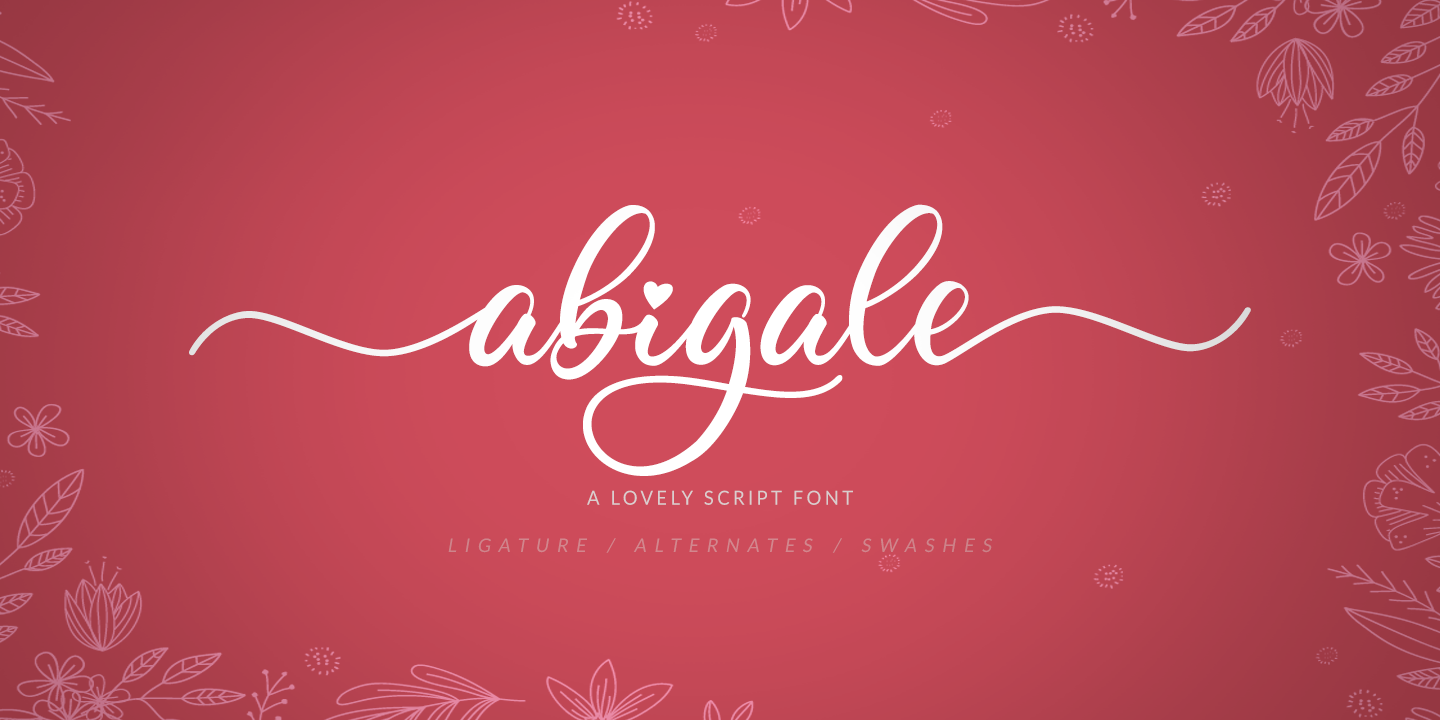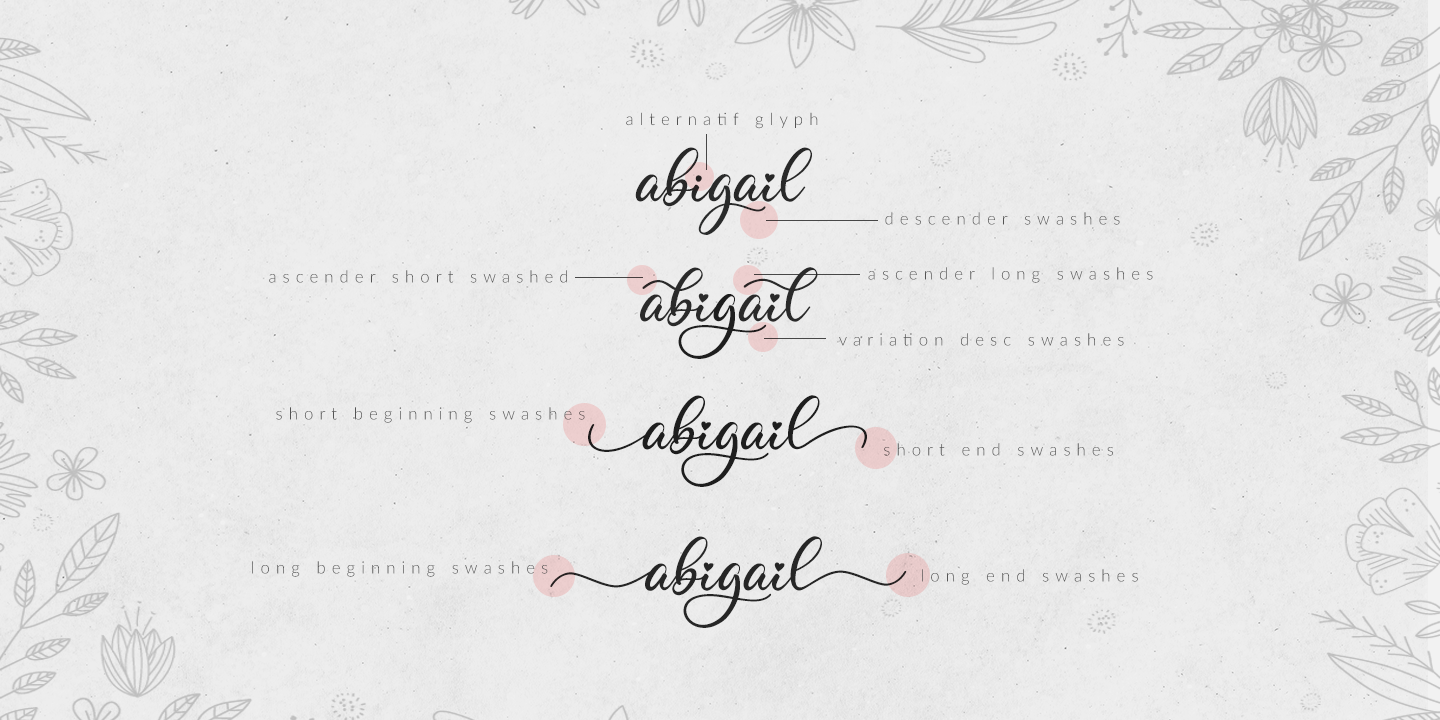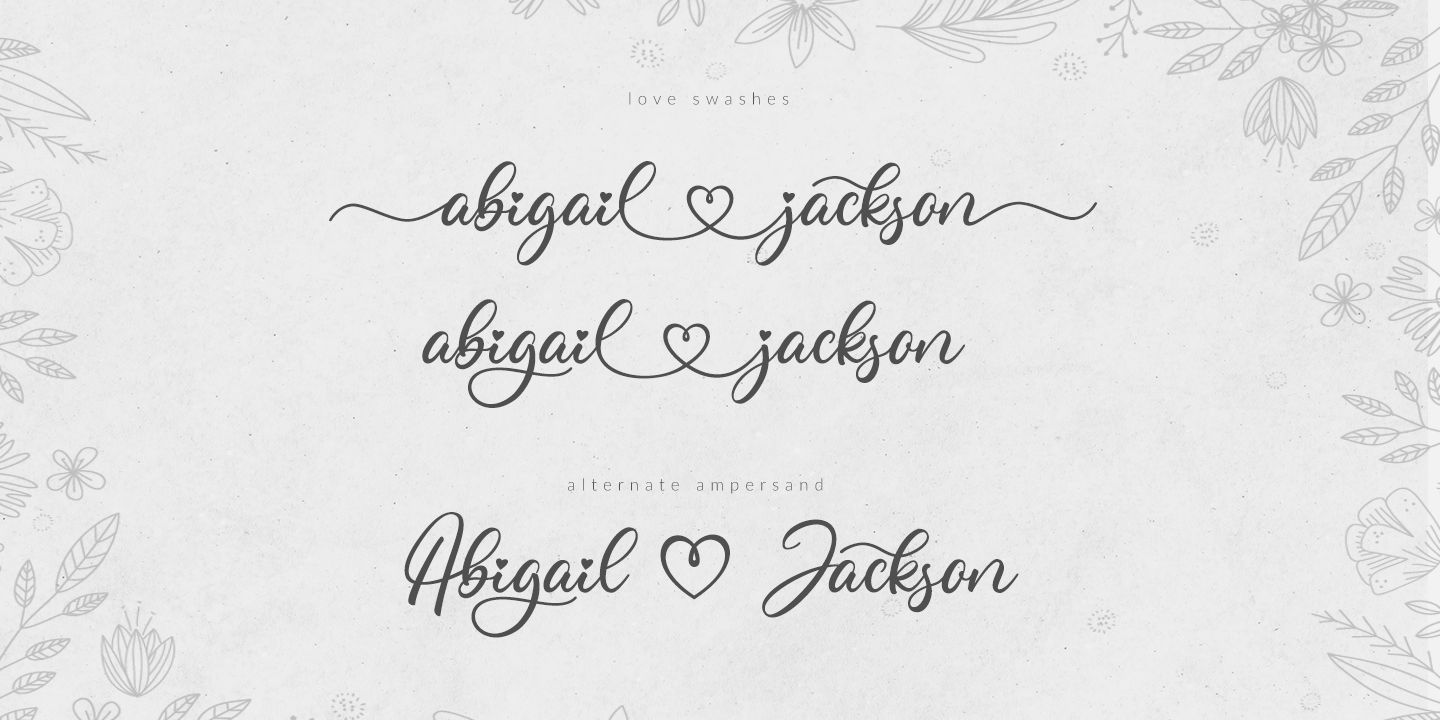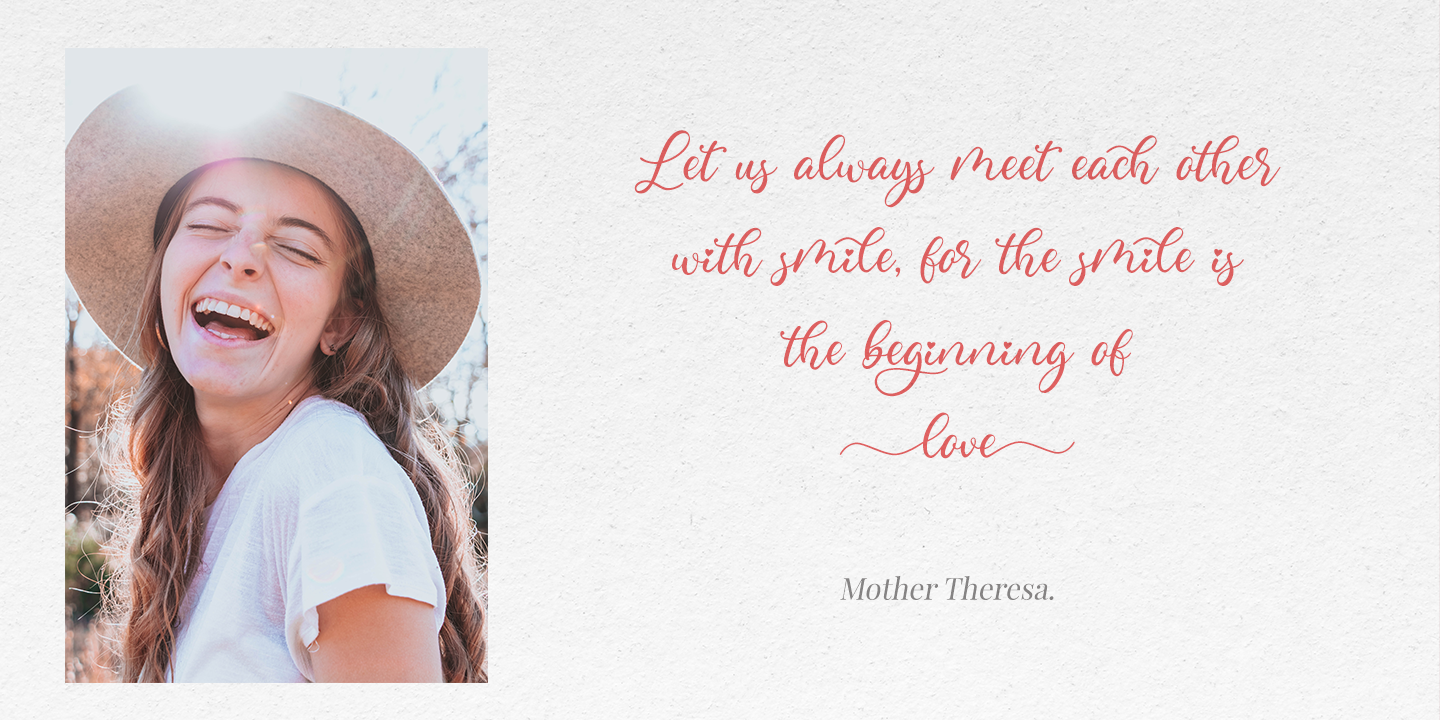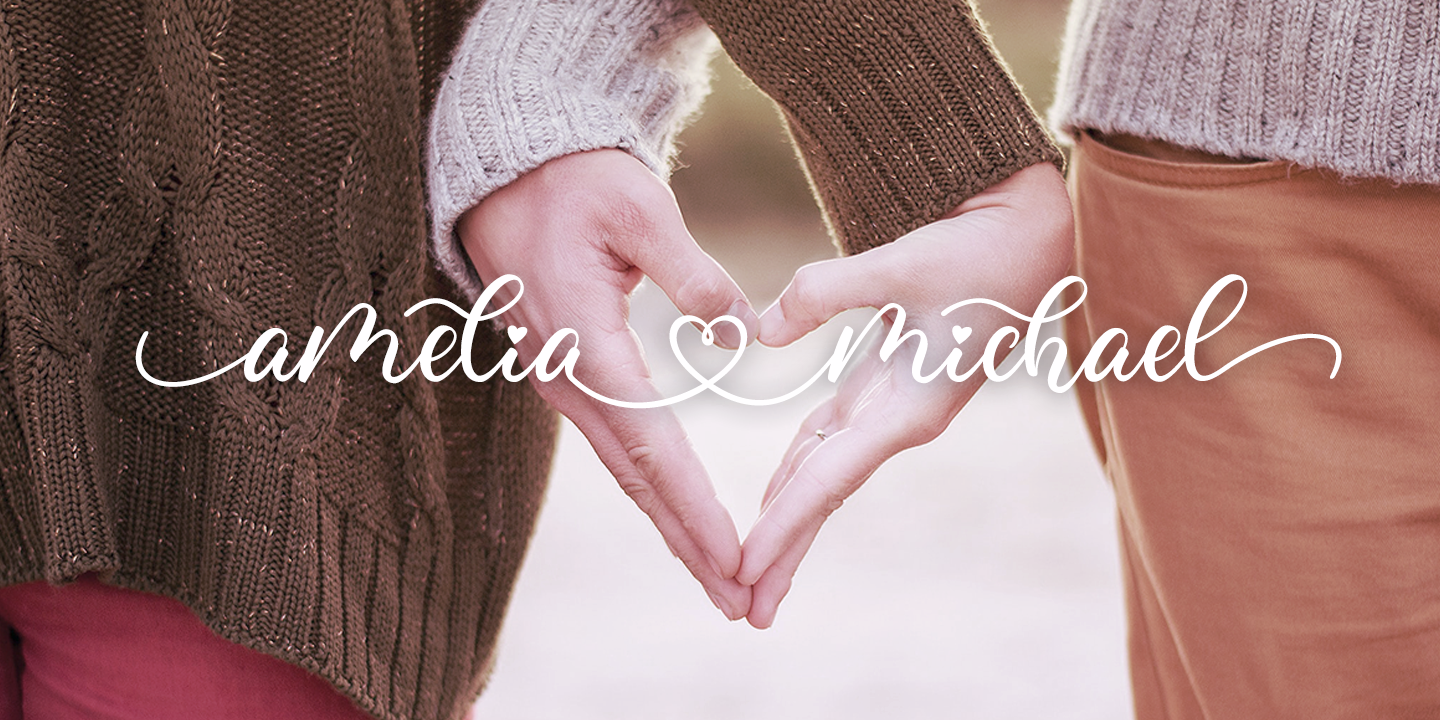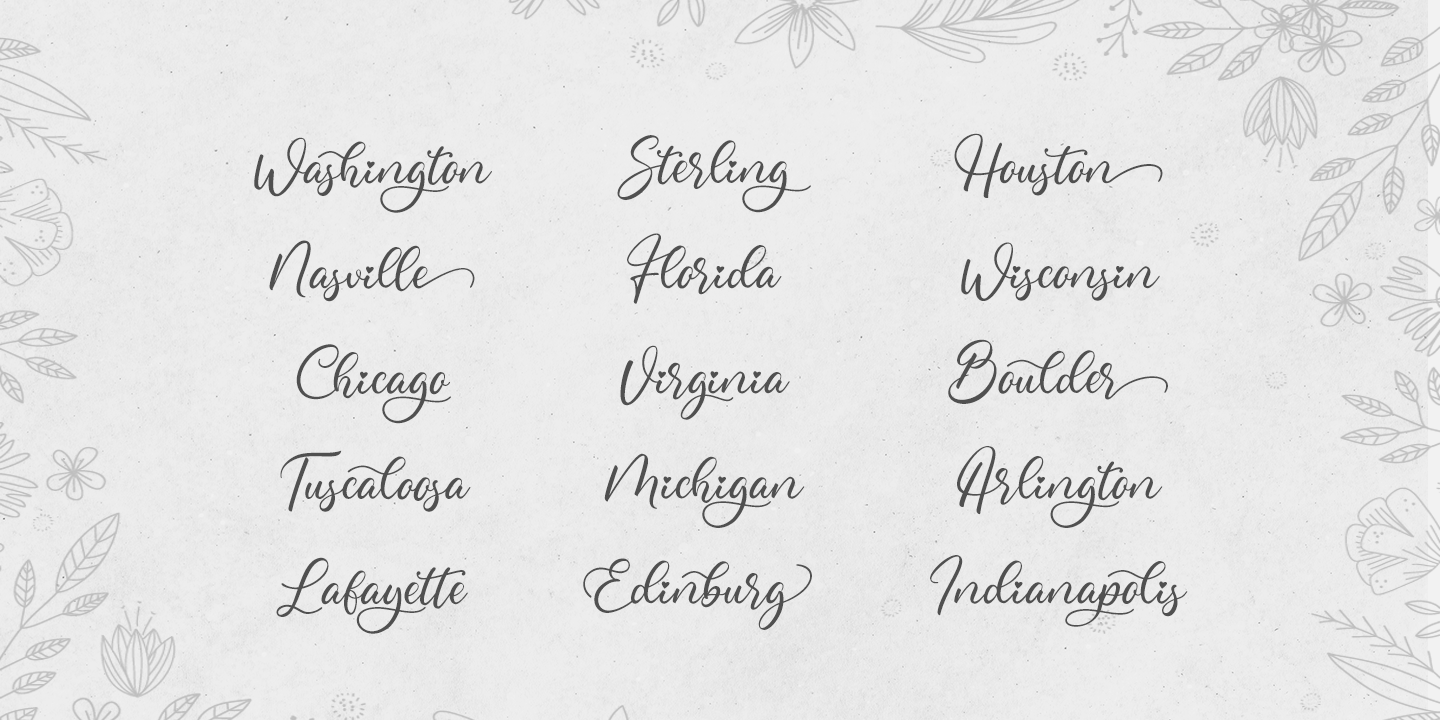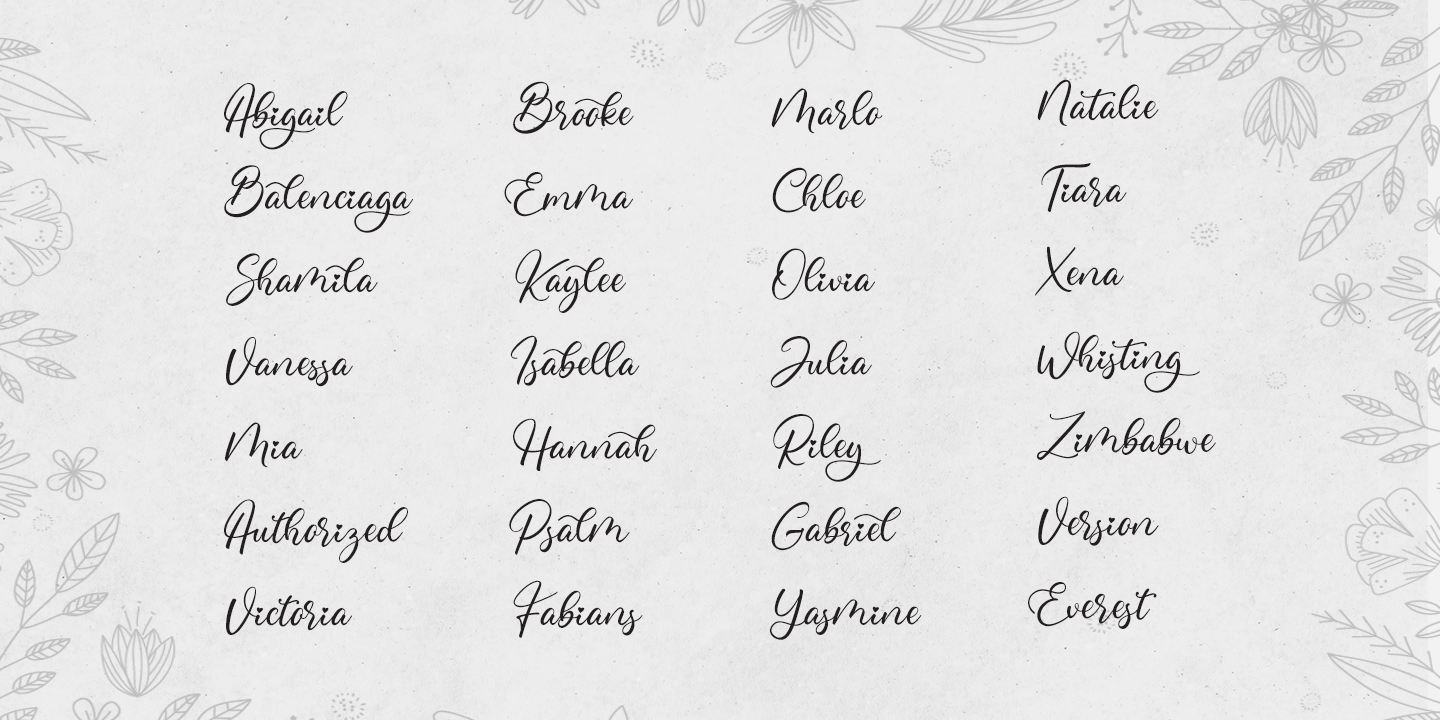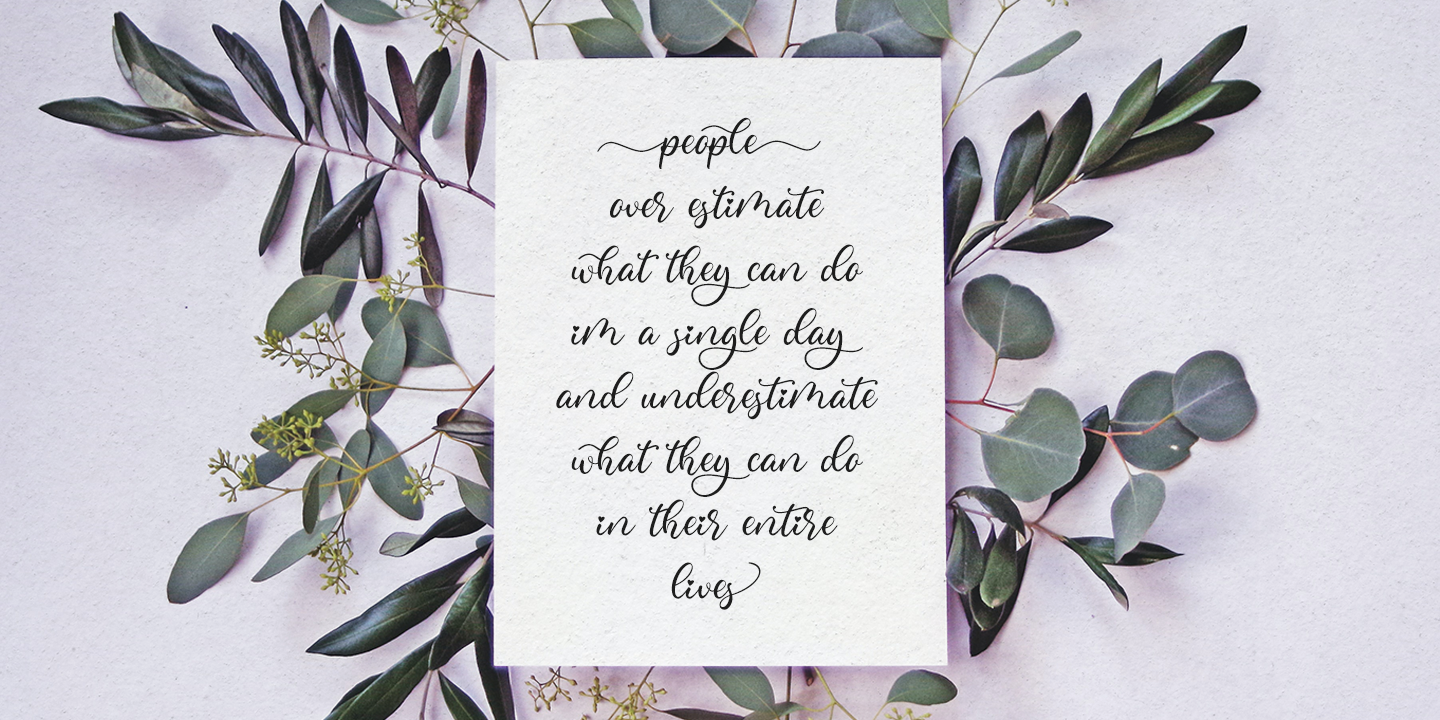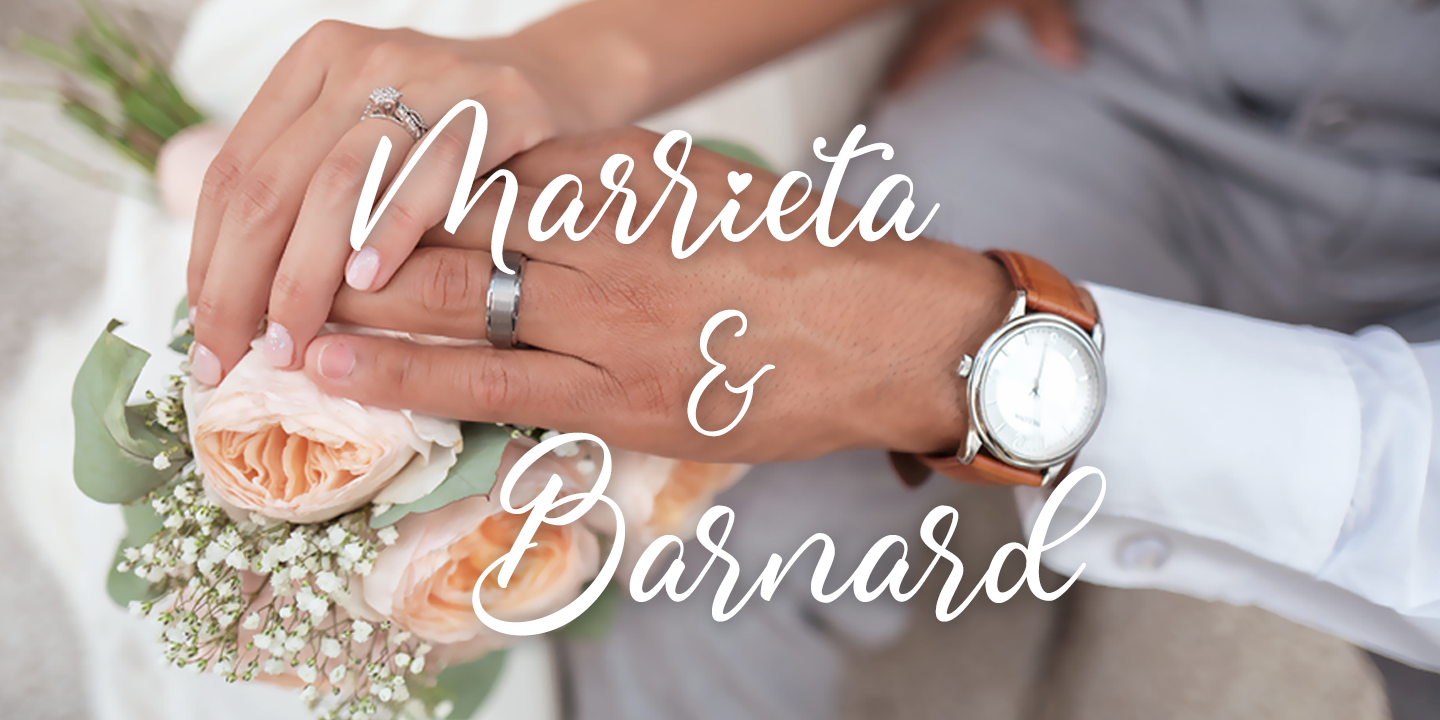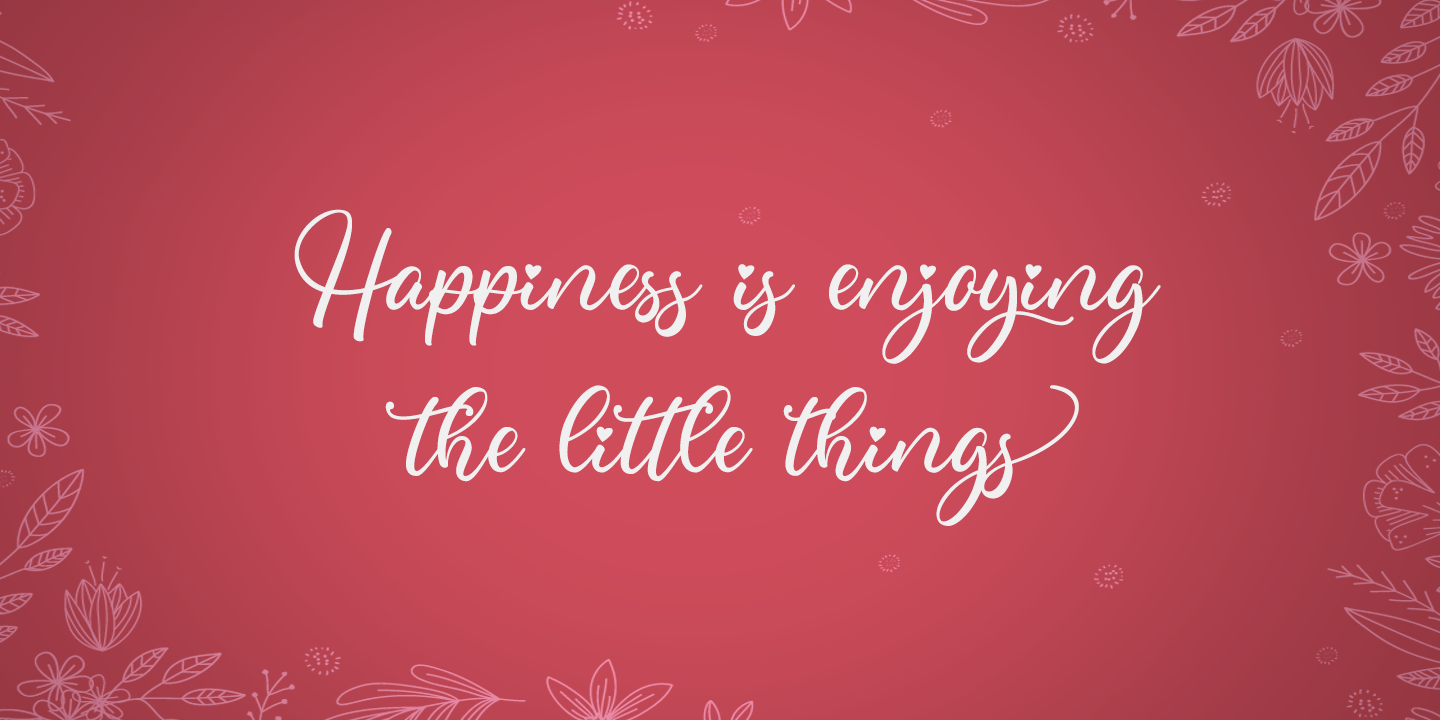
Abigale was built with OpenType features and includes beginning and ending swashes, heart / love swashes, numbers, punctuation, alternates, ligatures and it also supports other languages :)
Say hello to Abigale - A font that you were meant to find, and is now destined to be with you :) Abigale is a lovingly handwritten script , with an air of grace and flamboyancy.
Abigale is special in that one word can be written in a many different ways - thanks to the large selection of extra letters that it has built in. To access all the extra characters , Opentype capable software is recommended - most apps support Opentype features now days.